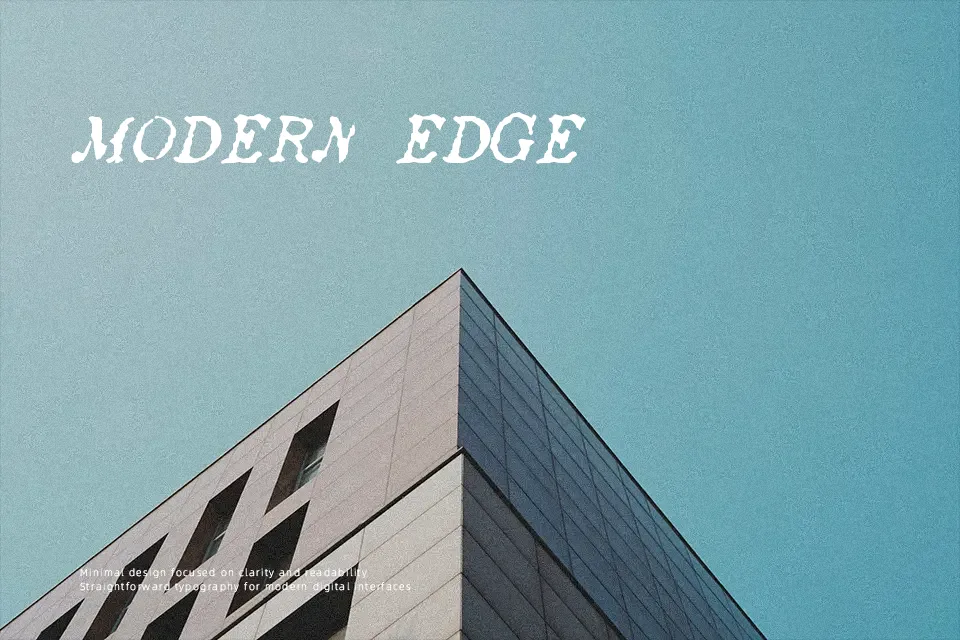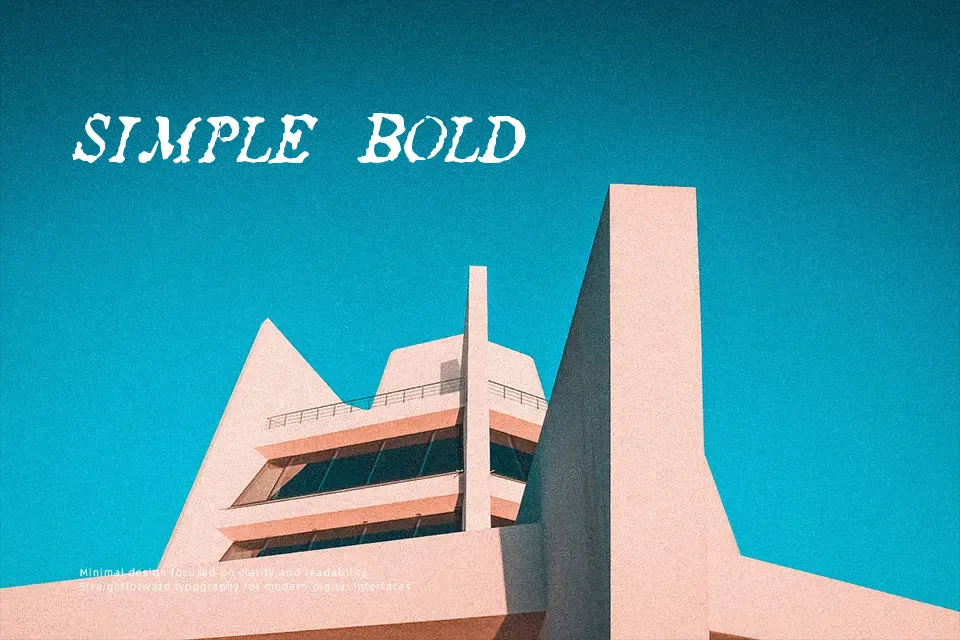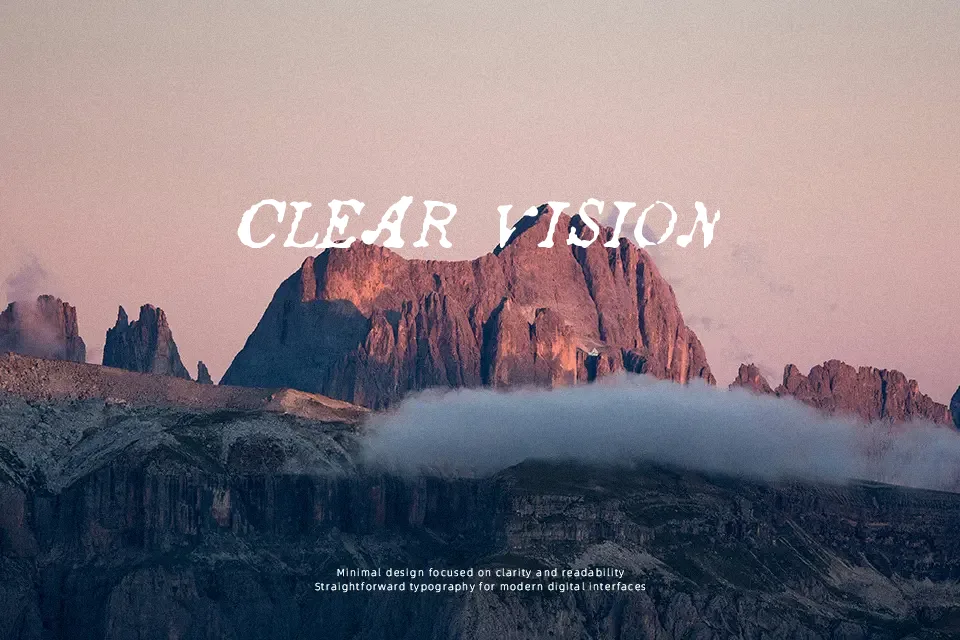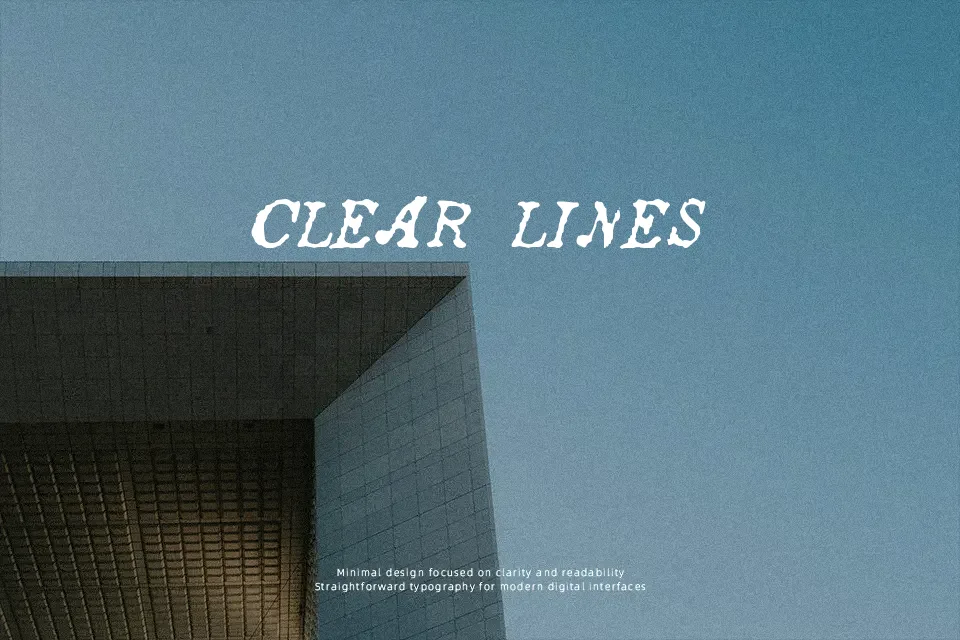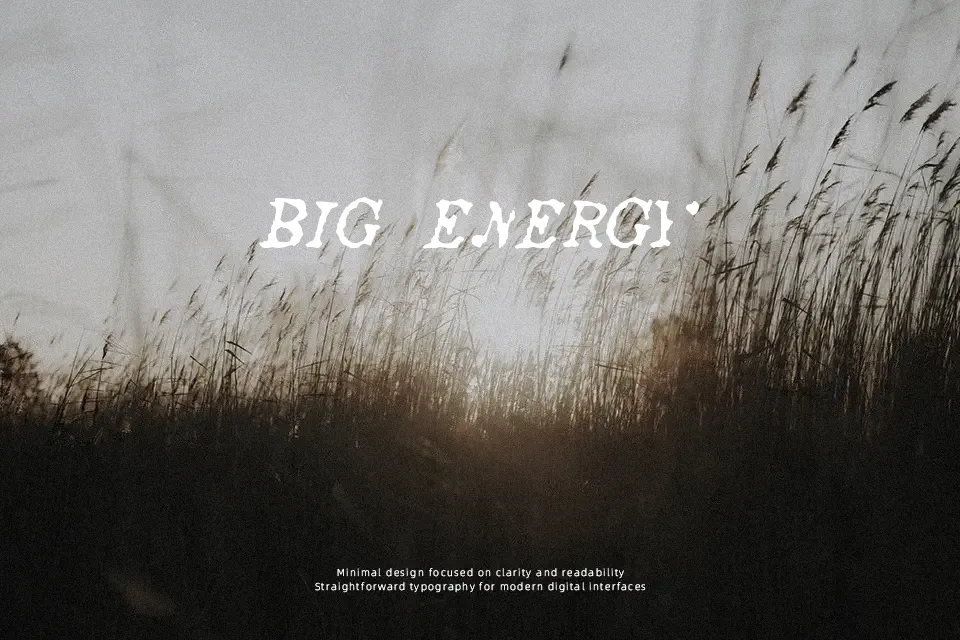
Ancient Story Font
The strokes in Ancient Story carry visible wear — uneven edges, rough texture, and a heaviness that reads less like a designed typeface and more like letterforms lifted from an old wall inscription. That texture is its main draw, lending credibility to historical editorial layouts, fantasy book covers, and vintage merchandise headers. It fits best at large display sizes where the erosion detail is readable; shrink it down and the roughness turns to muddy noise. It works well when the design calls for age to feel earned rather than decorative, but struggles in clean, modern contexts where visual polish matters.
Best For:- Historical editorial headers and chapter titles
– Fantasy or RPG game branding
– Vintage merchandise and label design
– Book cover display text with an aged aesthetic
Not Ideal For:- Body text or paragraphs at any size
– Modern corporate or tech branding
– Small-scale print where texture detail collapses
– Clean minimalist UI design
Perfect for branding, editorial, and film, with a ancient and decorative style.